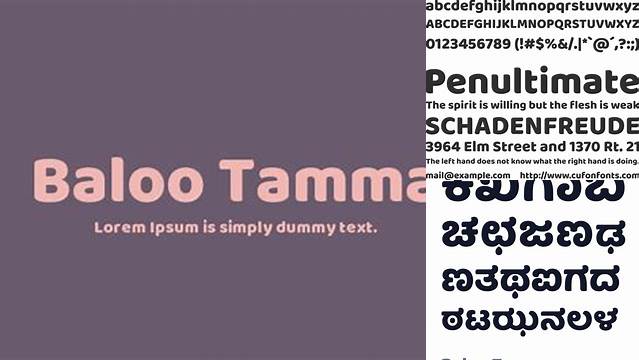
Baloo Tamma Kannada Font: Free Download Guide
Hey guys! Are you looking to jazz up your projects with a cool Kannada font? Look no further! In this article, we’re diving deep into the world of Baloo Tamma, a fantastic Kannada font that’s not only visually appealing but also free to download. We'll cover everything from its origins to how you can use it in various projects. So, buckle up and let's get started!
What is Baloo Tamma?
Baloo Tamma is a delightful Kannada font that belongs to the Baloo family. Designed by Ek Type, this font is known for its rounded, friendly appearance. It’s part of a larger initiative to create fonts that support various Indian languages, making it a valuable asset for designers and content creators. The font's design philosophy emphasizes readability and approachability, making it perfect for a wide range of applications. Whether you're working on a website, creating marketing materials, or designing a book, Baloo Tamma can add a touch of warmth and authenticity to your project. Its unique character shapes and consistent design make it stand out while maintaining clarity.
History and Origin of Baloo Tamma
The story of Baloo Tamma begins with Ek Type, a collaborative type foundry based in India. They aimed to create fonts that support multiple Indian scripts, addressing the need for high-quality, free-to-use fonts in these languages. Baloo Tamma is one of the results of this initiative, designed to bring a sense of playfulness and approachability to Kannada typography. The creation of Baloo Tamma involved extensive research into the Kannada script and its nuances. The designers carefully crafted each glyph to ensure it was both aesthetically pleasing and easy to read. This attention to detail is what sets Baloo Tamma apart from many other Kannada fonts available today. The font's release was a significant contribution to the open-source font community, providing a valuable resource for designers and developers working with Kannada text.
Key Features of Baloo Tamma
One of the standout features of Baloo Tamma is its rounded, friendly design. Unlike more formal or traditional fonts, Baloo Tamma has a playful and approachable feel, making it suitable for a wide range of applications. Its excellent readability, even at smaller sizes, makes it a practical choice for body text. The font also includes a comprehensive set of glyphs, covering all the characters needed for writing in Kannada. This ensures that you can use Baloo Tamma for any Kannada text, without worrying about missing characters or inconsistent styling. Furthermore, Baloo Tamma is available under an open-source license, meaning you can use it for personal and commercial projects without any licensing fees. This makes it an incredibly accessible option for anyone looking to enhance their designs with a Kannada font.
Why Choose Baloo Tamma Kannada Font?
Choosing the right font can significantly impact the overall look and feel of your project. Baloo Tamma stands out as an excellent choice for several reasons. First and foremost, its design is incredibly versatile. Whether you're working on a children's book, a website for a local business, or marketing materials for a cultural event, Baloo Tamma can adapt to suit your needs. Its readability ensures that your message is clear and accessible to your audience. Plus, the fact that it's free to download and use means that you can incorporate it into your projects without worrying about licensing costs. In a world where many fonts come with hefty price tags, Baloo Tamma offers a refreshing alternative. By choosing Baloo Tamma, you're not just selecting a font; you're supporting the open-source community and contributing to the accessibility of Kannada typography.
Versatility in Design
The versatility of Baloo Tamma is one of its greatest strengths. It’s equally at home in print and digital media, making it a valuable asset for designers working across different platforms. Its playful design makes it a great choice for projects targeting children or younger audiences. At the same time, its readability and clarity make it suitable for more formal applications, such as reports or presentations. The font's adaptability extends to different design styles as well. Whether you prefer a minimalist look or a more elaborate design, Baloo Tamma can be incorporated seamlessly. This versatility allows you to maintain a consistent brand identity across all your materials, ensuring that your message is always clear and on-brand. By choosing Baloo Tamma, you're investing in a font that can grow with your projects and adapt to your evolving needs.
Readability and Clarity
Readability is paramount when it comes to typography, and Baloo Tamma excels in this area. The font's designers paid close attention to the spacing and proportions of each character, ensuring that it is easy to read even at small sizes. This makes Baloo Tamma an excellent choice for body text, where readability is crucial. The font's clear and distinct letterforms also help to reduce eye strain, making it more comfortable for readers to engage with your content. In addition to its inherent readability, Baloo Tamma also works well with different text treatments, such as bolding, italicizing, and highlighting. This allows you to emphasize key points and add visual interest to your text without sacrificing readability. By prioritizing readability, Baloo Tamma ensures that your message is always clear and accessible to your audience.